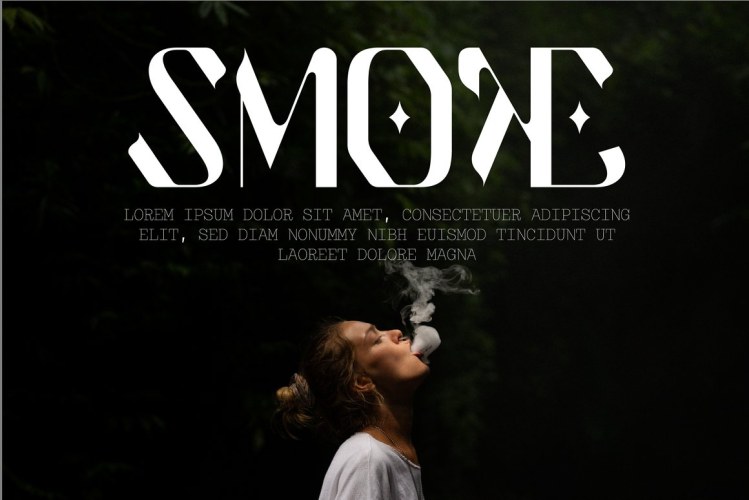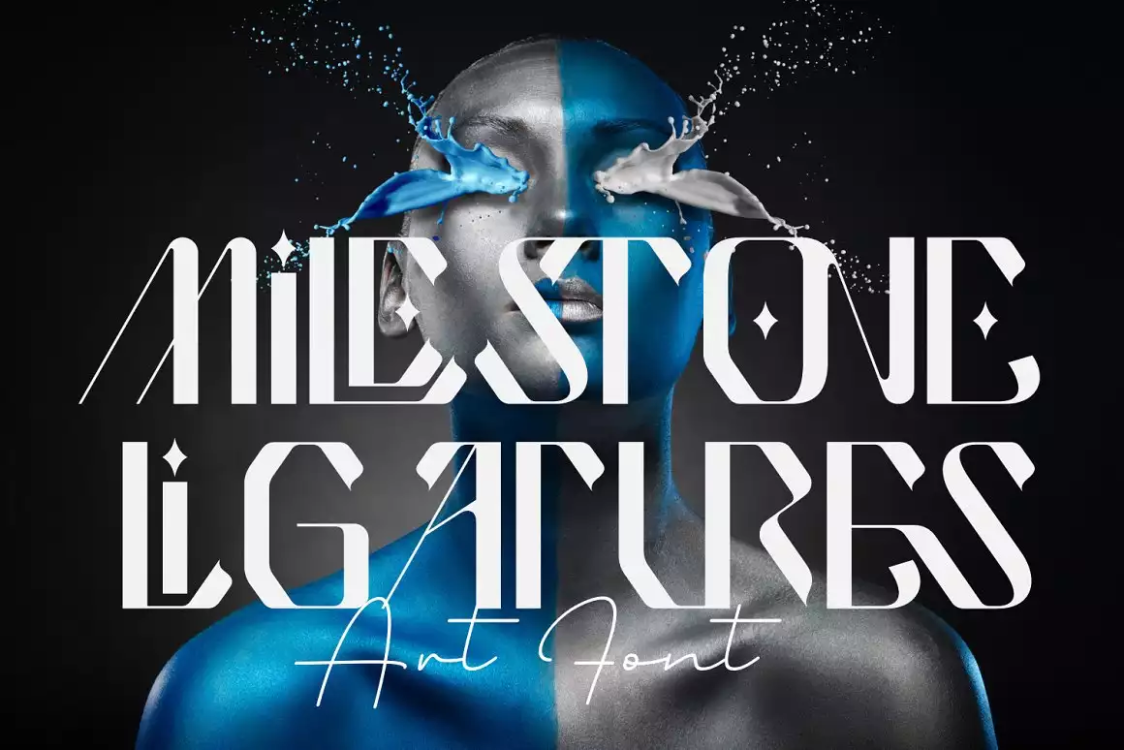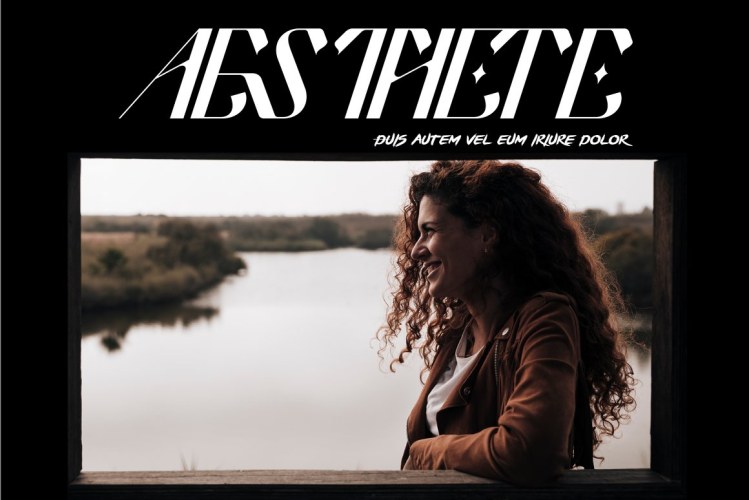
Milestone Ligatures Font
Milestone Ligatures Font – Trendy, elegant, modern & condensed style sans serif font for your new modern projects. Luxury, artistic, fancy and fashion style on this font will be great for any branding project. This is a perfect choice for creating logotypes, branding, headlines, corporate identities, and marketing materials for web, digital & print alike.
Milestone was built with OpenType features and includes 100 ligatures, alternate, numbers, punctuation, and it also supports other languages.
Milestone Ligatures Font is a Display Fonts font that brings a professional and versatile look to your projects. Milestone Ligatures Font – Trendy, elegant, modern & condensed style sans serif font for your new modern projects.